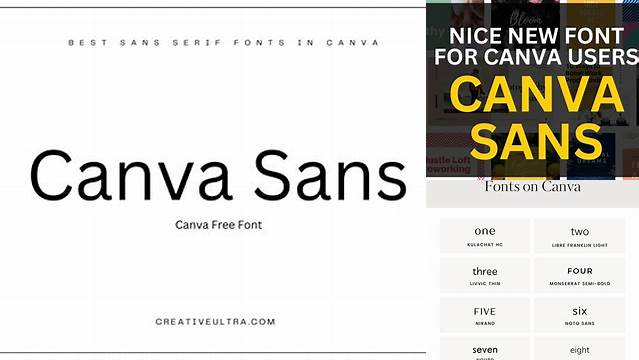
Hey guys! Ever stumbled upon a font that just clicks? That's how a lot of designers feel about Canva Sans Regular. It's clean, it's versatile, and best of all, it's free! If you're on the hunt for a solid typeface for your projects, you've come to the right place. We're diving deep into everything Canva Sans Regular, from where to download the TTF file to how to best use it in your designs. Let's get started!
1. What is Canva Sans Regular Font?
So, what exactly is Canva Sans Regular? Well, it's a sans-serif typeface that's known for its readability and modern aesthetic. Think clean lines, simple shapes, and a friendly vibe. It’s the kind of font that works well in a variety of contexts, whether you're designing a website, creating social media graphics, or putting together a presentation. The beauty of Canva Sans Regular lies in its versatility. It’s not too flashy or distracting, making it a great choice for body text, but it also has enough personality to shine in headings and titles. It’s a workhorse font that can handle a lot, making it a staple in many designers' toolkits. It’s also worth noting that Canva Sans is part of a larger font family, meaning you get different weights and styles to play with, giving you even more flexibility in your design projects. We will get to that later though, for now, we're concentrating on the Canva Sans Regular.
9. Canva Sans Regular vs. Other Popular Fonts
How does Canva Sans Regular stack up against other popular fonts? That's a great question! Compared to classics like Arial or Helvetica, Canva Sans Regular has a slightly warmer, more approachable feel. It's still clean and modern, but it has a touch of personality that some other sans-serif fonts lack. When you compare it to Google Fonts like Open Sans or Lato, you'll notice that Canva Sans Regular has a similar level of readability and versatility. However, Canva Sans Regular might offer a slightly more polished and refined look, thanks to its careful design and kerning. Ultimately, the best font for your project depends on your specific needs and preferences. But Canva Sans Regular is definitely a contender worth considering if you're looking for a reliable, modern, and free sans-serif option. It’s like the friendly, slightly cooler cousin of the more traditional fonts.
30. Final Thoughts on Canva Sans Regular and Font Selection
So, there you have it – a deep dive into the world of Canva Sans Regular. We've explored its history, its characteristics, its applications, and its alternatives. Hopefully, you now have a better understanding of why Canva Sans Regular is such a popular font and how you can use it effectively in your own design projects. But beyond the specifics of Canva Sans Regular, this exploration highlights the importance of font selection in general. Choosing the right font is a crucial aspect of design, as it can significantly impact the readability, accessibility, and overall effectiveness of your work. When selecting a font, consider factors like your target audience, the message you want to convey, and the context in which the font will be used. Don't be afraid to experiment with different fonts and font pairings, and always prioritize readability and clarity. And remember, a well-chosen font is a powerful tool that can help you communicate your ideas with style and precision. Happy designing!